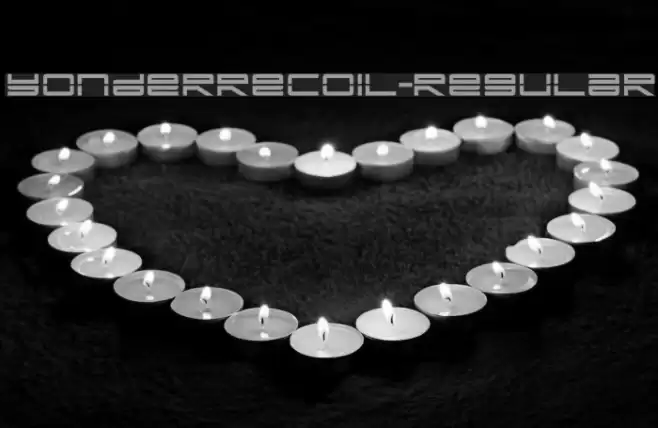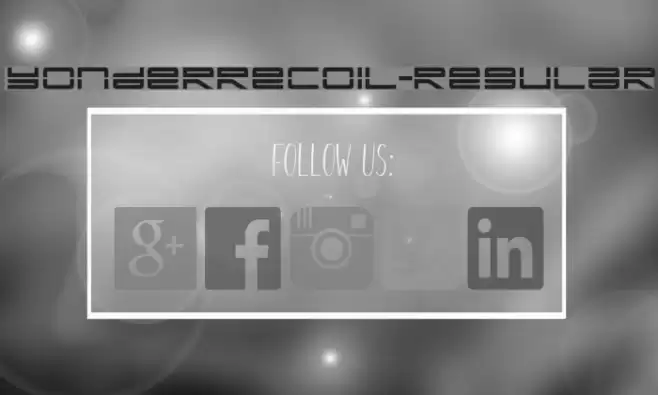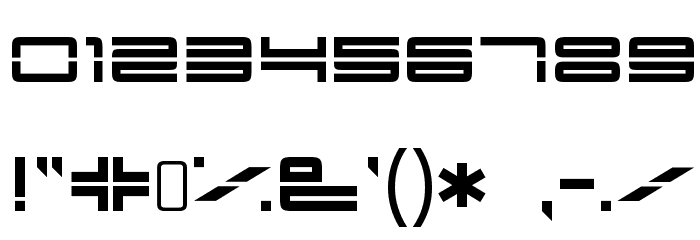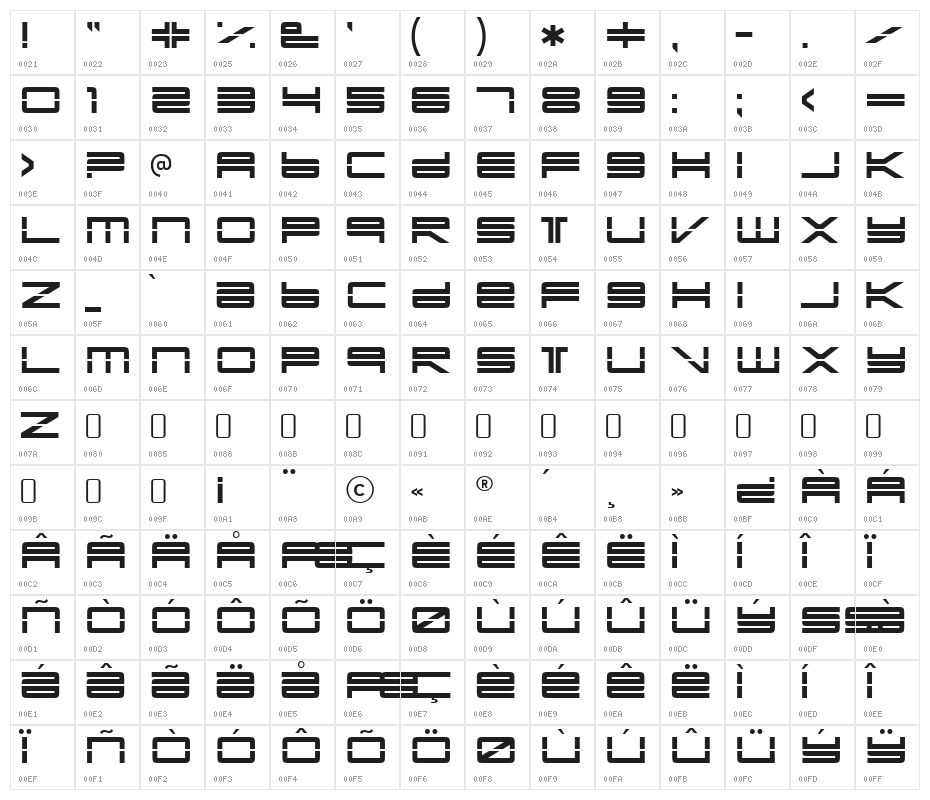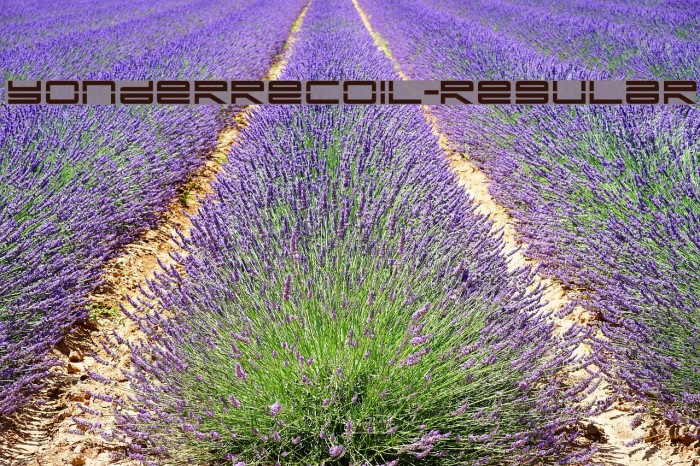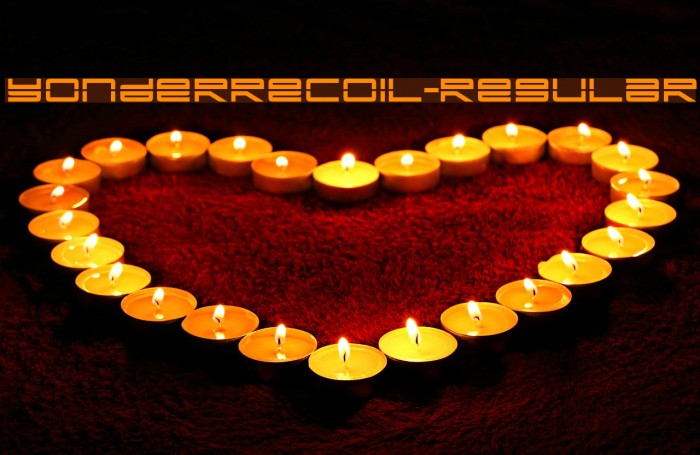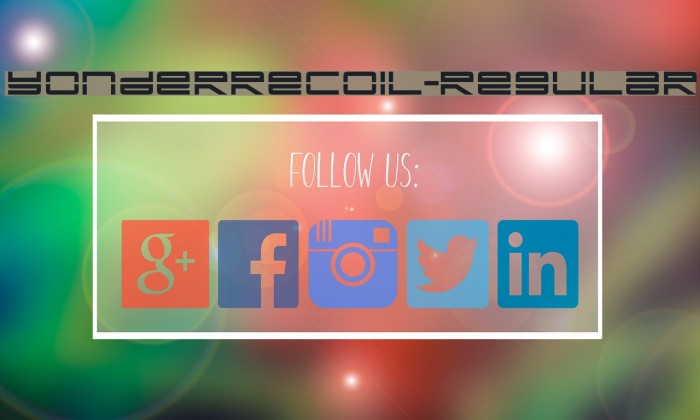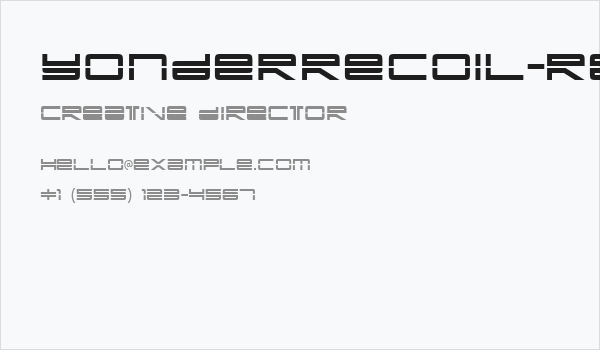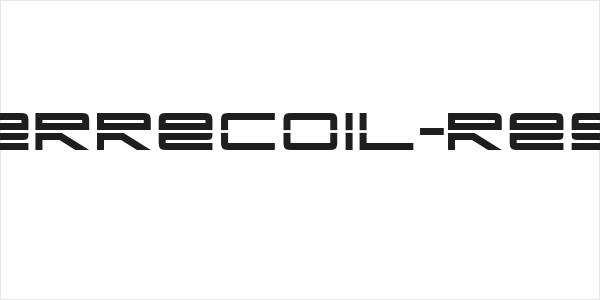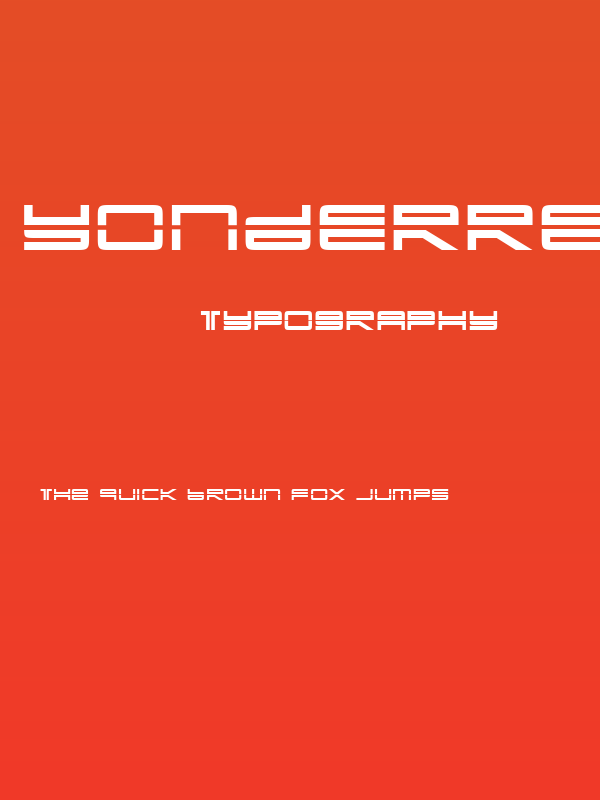
YonderRecoil-Regular Font
YonderRecoil-Regular Description
This font features a futuristic and geometric design with a distinct digital aesthetic. The characters are constructed with straight lines and sharp angles, giving it a modern and technological feel. The uppercase and lowercase letters maintain a consistent style, with unique cutouts and negative spaces that enhance its digital appearance. The numerals and special characters follow the same design principles, ensuring uniformity across all glyphs. This font is ideal for projects that require a sleek, high-tech look, such as technology branding, video game titles, or sci-fi themed designs.
A futuristic, geometric font with a digital and technological aesthetic from Uncategorized fonts.
- Proposed Projects: Ideal for technology branding, video game titles, sci-fi themed designs, and digital interfaces.